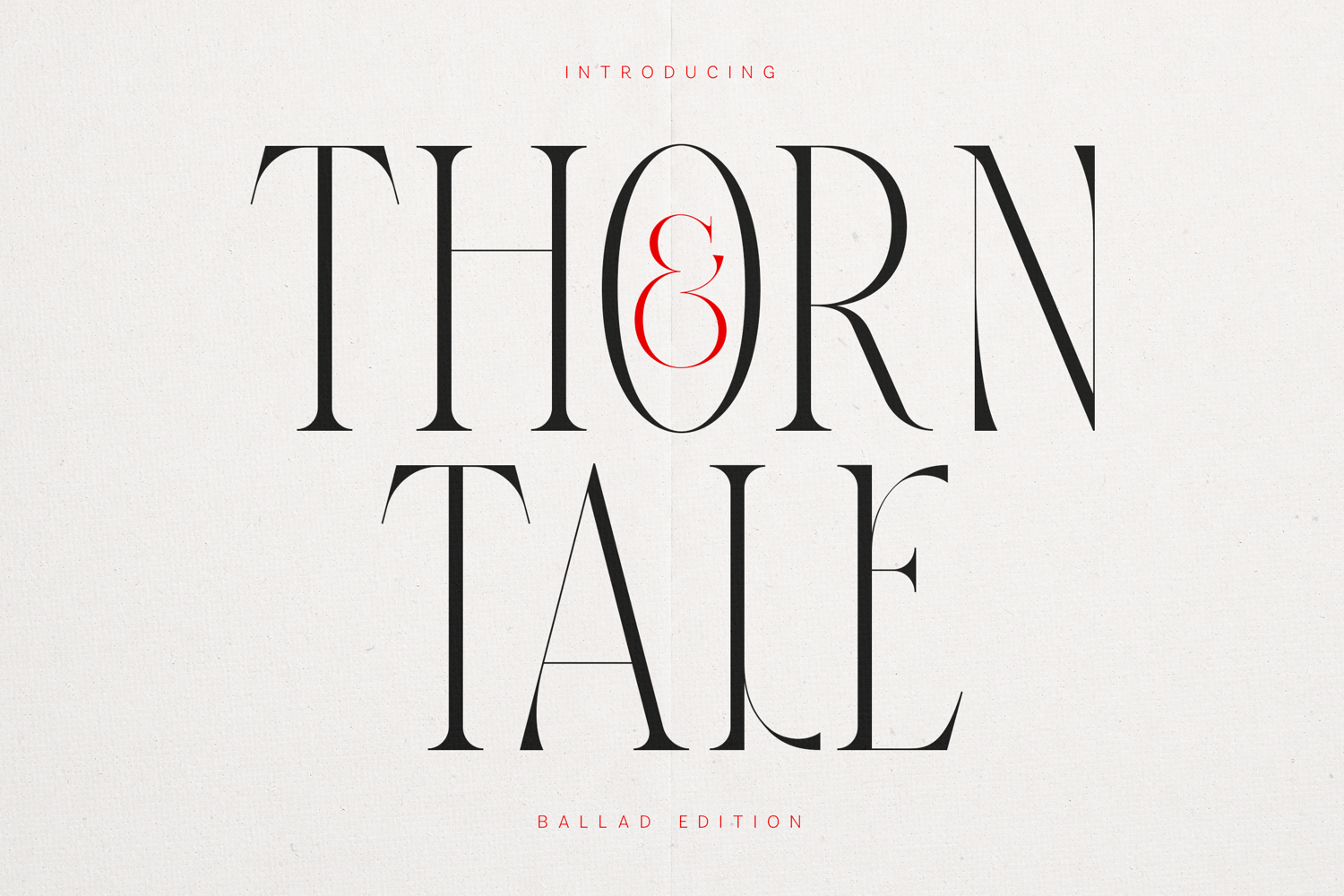
Thorn Tale Elegant Modern Serif
Thorn Tale – Ballad Edition is a refined modern serif typeface that blends classical elegance with contemporary minimalism.
Designed with delicate contrasts, graceful curves, and sharp serif details, Thorn Tale creates a sophisticated typographic voice ideal for luxury branding, editorial layouts, and high-end visual identities.
The typeface balances thin strokes with expressive terminals, giving it a distinctive personality that feels both timeless and modern. Its elegant proportions make it perfect for large titles while maintaining clarity and style in smaller compositions.
Thorn Tale is crafted for designers who want to bring a sense of refinement, romance, and modern luxury into their typography.
Perfect For
• Luxury branding
• Fashion editorials
• Magazine headlines
• Elegant logos
• Wedding invitations
• Packaging design
• High-end product branding
• Social media typography
• Elegant high-contrast serif design
• Modern luxury aesthetic